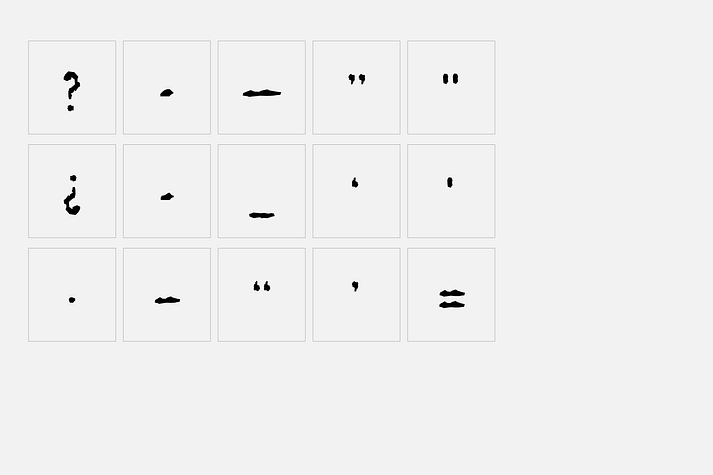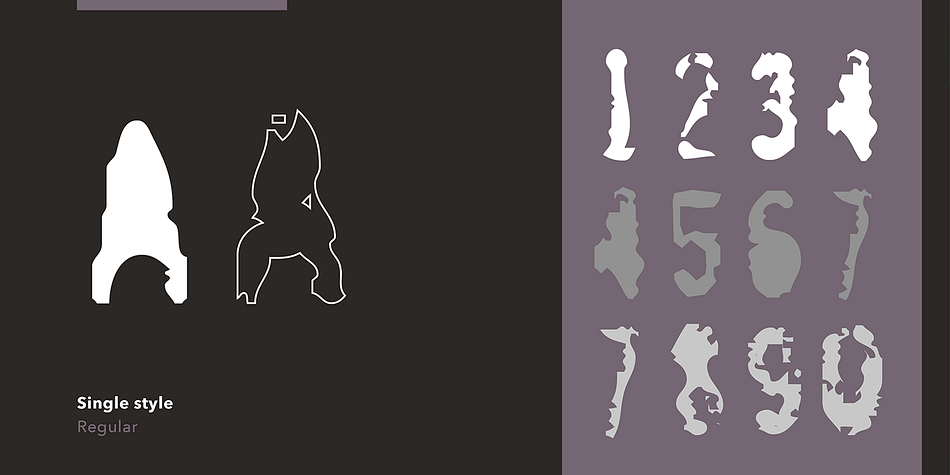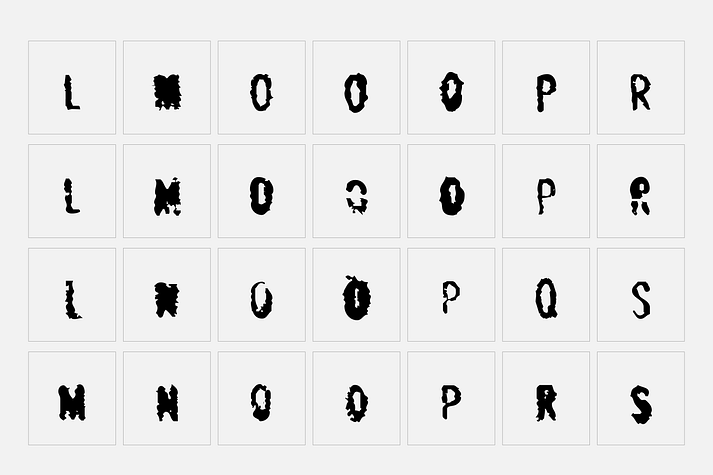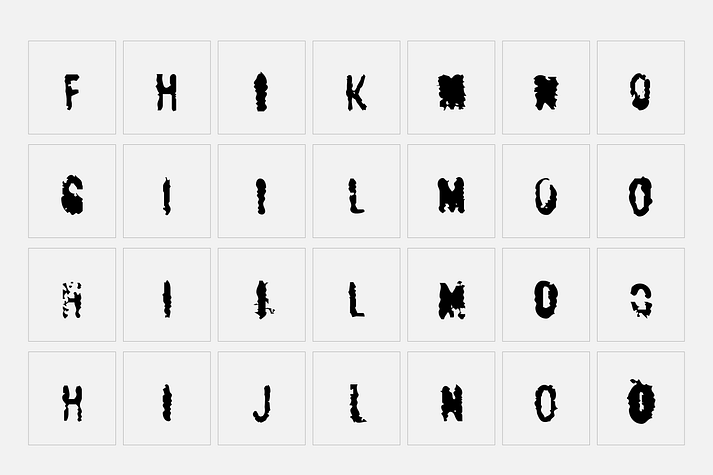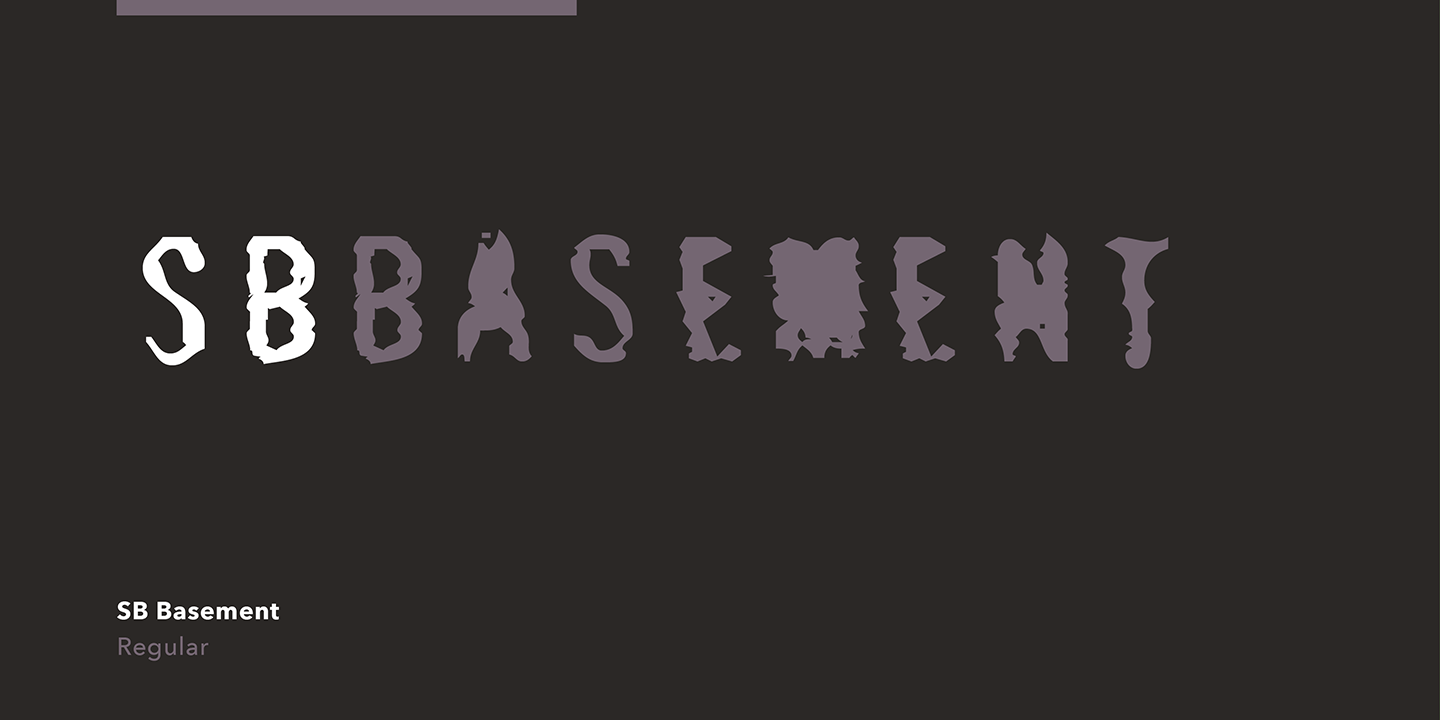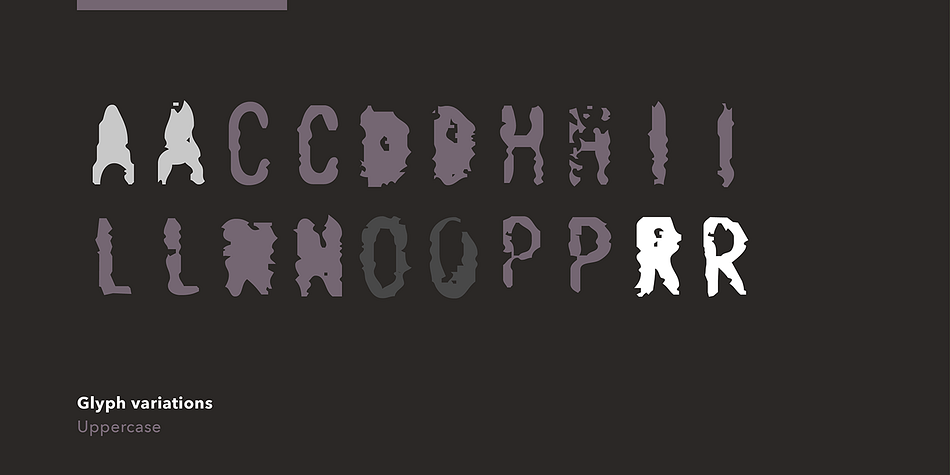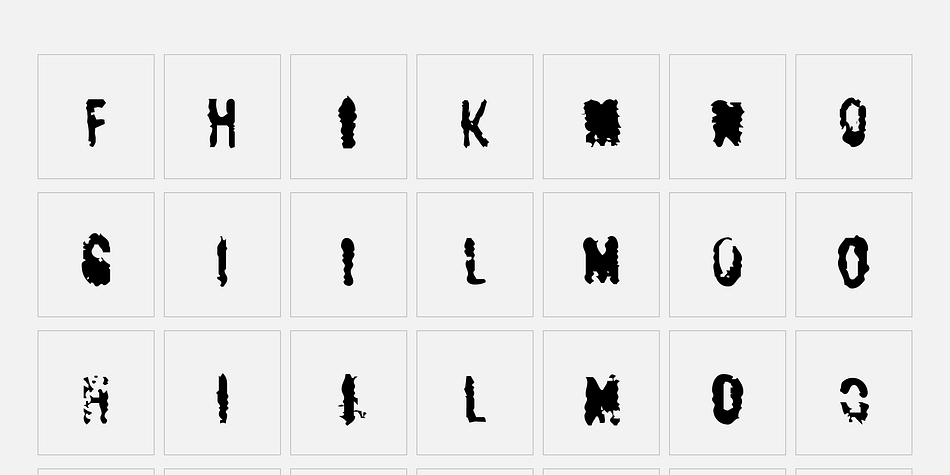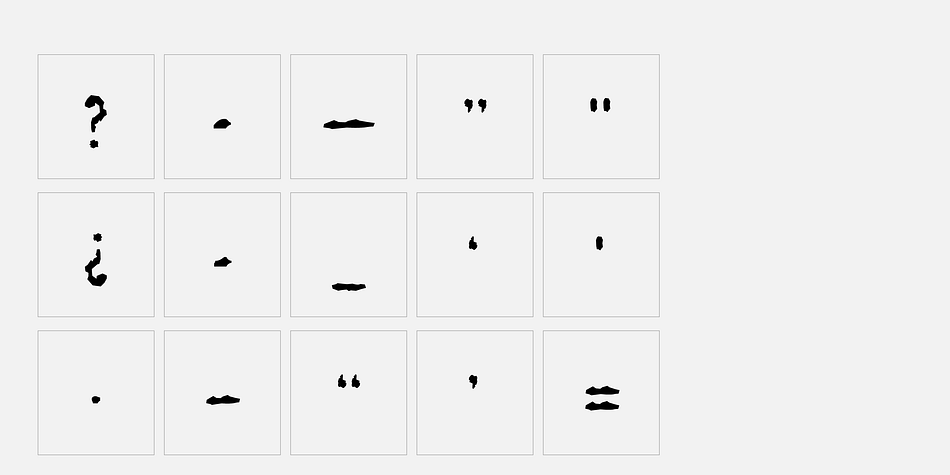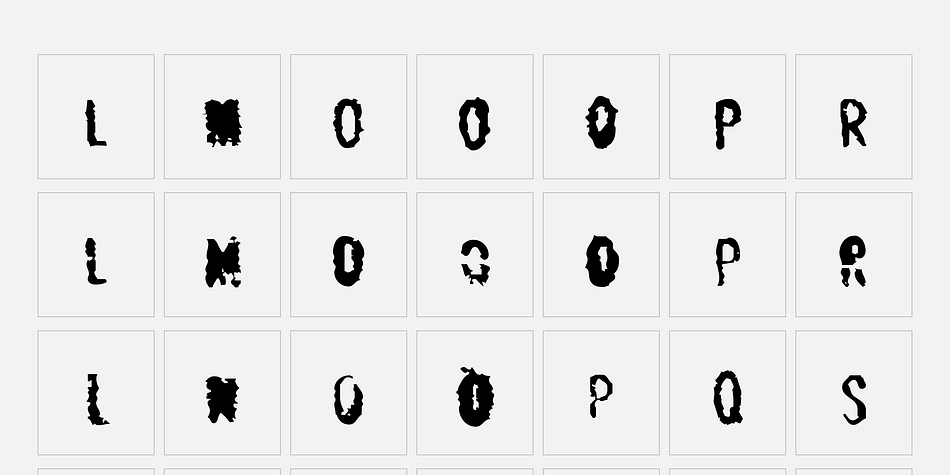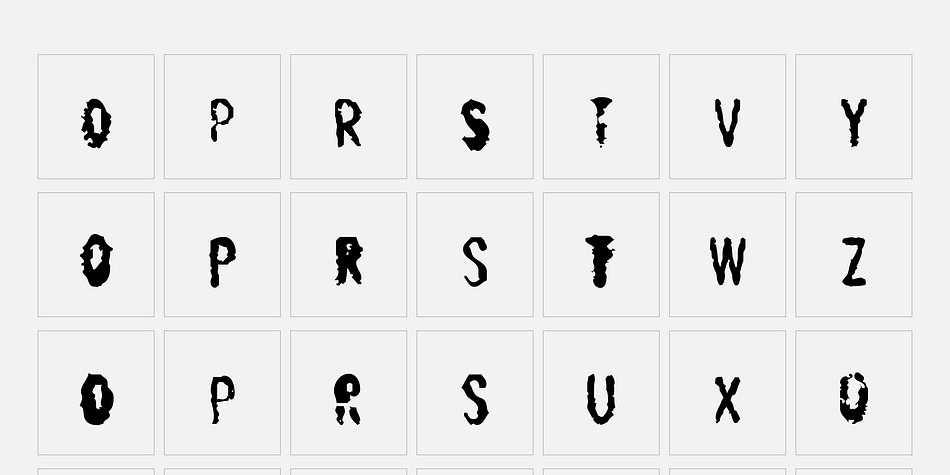
Designed by Craig Stainton, SB Basement is a grunge font published by SelfBuild Type Foundry.
SB Basement’s letterforms were originally taken from roughly stamped cardboard outer cases found in a stockroom basement. The original letters were printed by a machine at speed, with bad ink smearing on a rough, porous cardboard resulting in a bad, often barely legible reproduction of the original letterforms. Various scans were made and taken into FreeHand 3 for auto tracing, adding another form of distortion, albeit this time digital. The results are presented here as an OpenType typeface, for free download. Many characters have alternative glyphs, which helps to retain the random, smeared look of the original warehouse source material. SB Basement sits nicely alongside other distressed grunge fonts and has been used in projects around the themes of pollution, corrosion and acid rain.